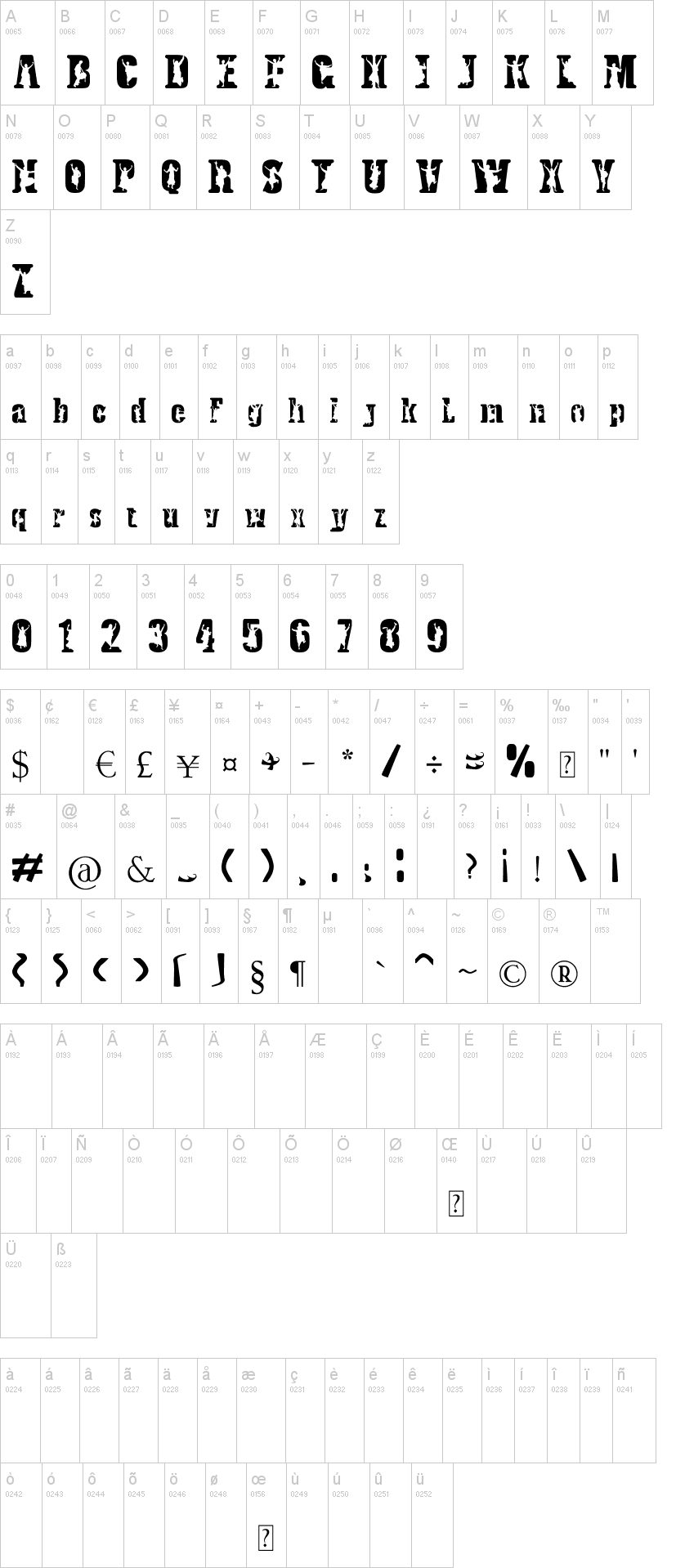
Шрифт Bhangra
Language represents a nations culture. As designers it is our responsibility to take our Panjabi bhangra culture a step forward with changing and demanding world. We have to adopt English language in our society by merging our culture with its elements.